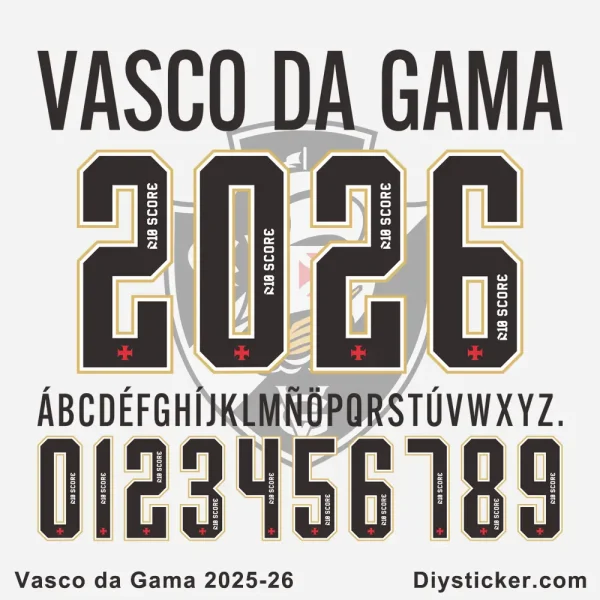
Vasco da Gama 2025-26 Font Download
Introducing the official Vasco da Gama 2025-26 font – the exact typography used in CR Vasco da Gama’s official kits and visual identity for the 2025-26 season. This complete digital font package is designed for supporters, designers, and creators who want to bring authentic Vasco style into their projects.